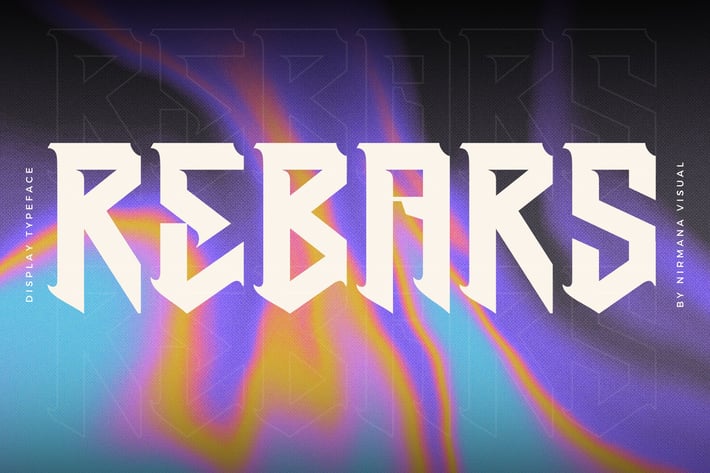
Rebars - Modern Vintage Font
Rebars - Vintage Font
Rebars Display offers beautiful typographic harmony for a diversity of design projects, including logos & branding, social media posts, advertisements & product designs.